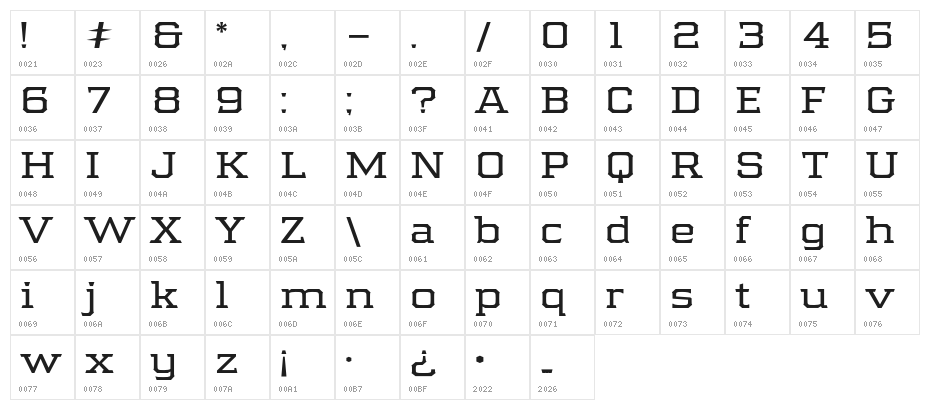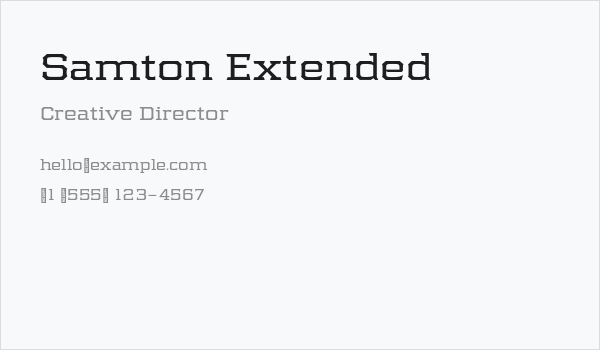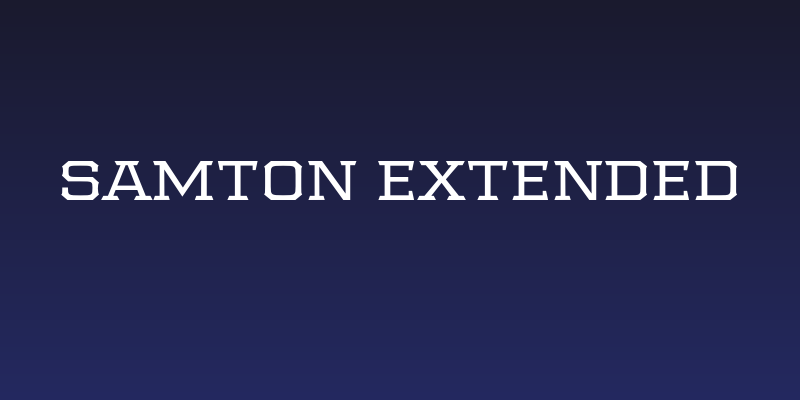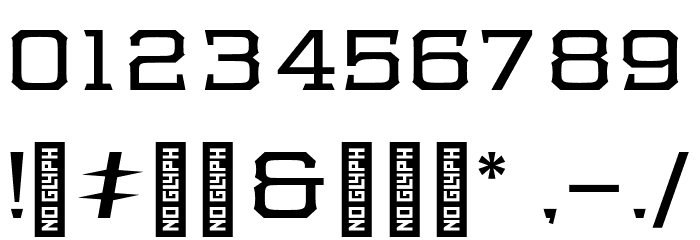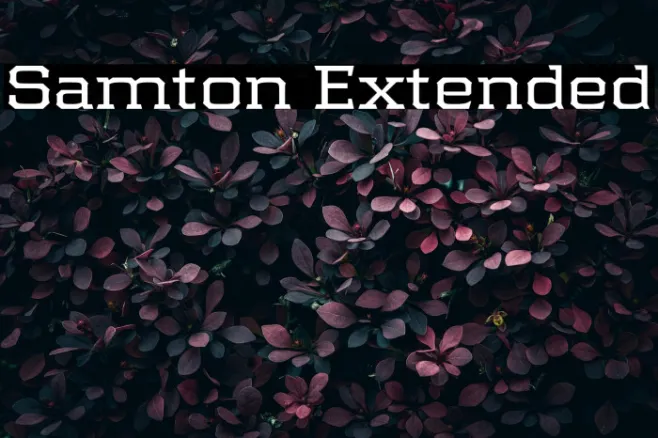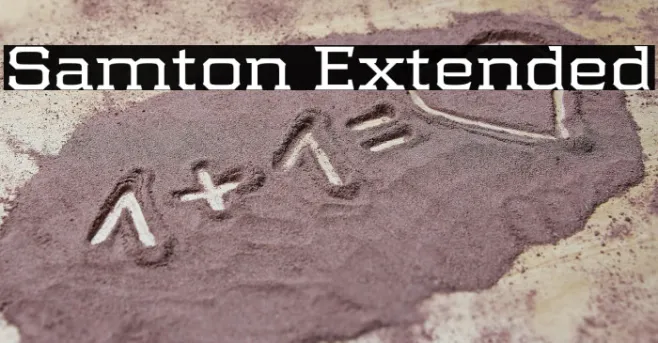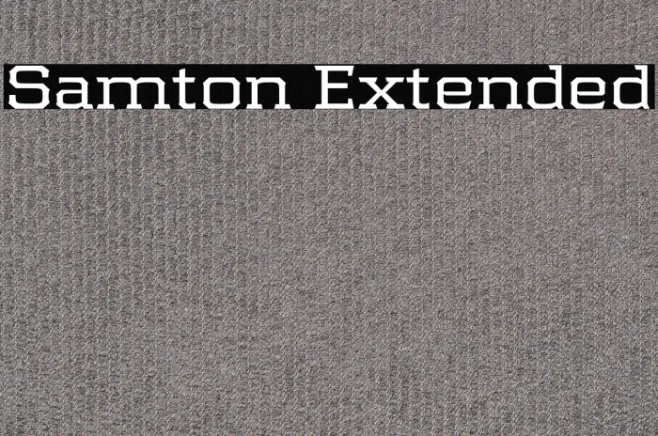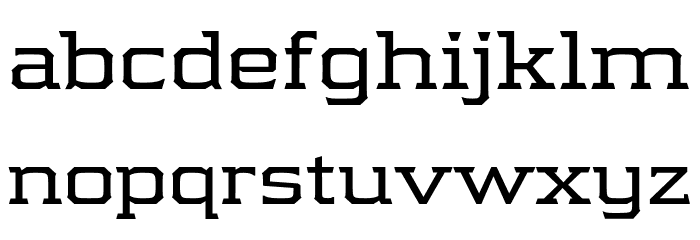
Samton Extended Font
Samton Extended Description
This font features a bold and structured design with a modern twist. The uppercase letters are strong and angular, giving a sense of stability and confidence. The lowercase letters maintain a similar structure, providing consistency across the typeface. The numbers are clear and legible, making them suitable for various applications. The font's overall appearance is clean and professional, with a slight industrial feel due to its geometric shapes and sharp edges. It lacks certain special characters, which may limit its use in some contexts.
| Proposed Projects | Ideal for branding, signage, and editorial design where a strong, modern presence is required. |